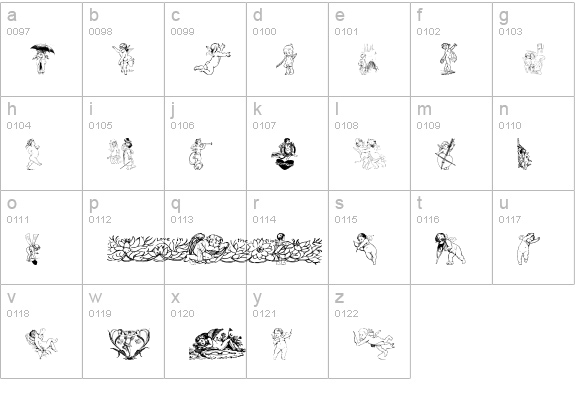
Cherub Font Details
Cherub font is a whimsical and elegant typeface that exudes charm and sophistication. With its delicate curves and graceful lines, Cherub is perfect for adding a touch of romance to any design project. Whether you're creating wedding invitations, branding materials, or decorative pieces, Cherub font will elevate your work to new heights. The best part? Cherub font is completely free to download at FontsMarket.com. This means you can easily access this stunning font and incorporate it into your projects without any cost. Don't miss out on the opportunity to add a touch of enchantment to your designs with Cherub font, available for free download now!